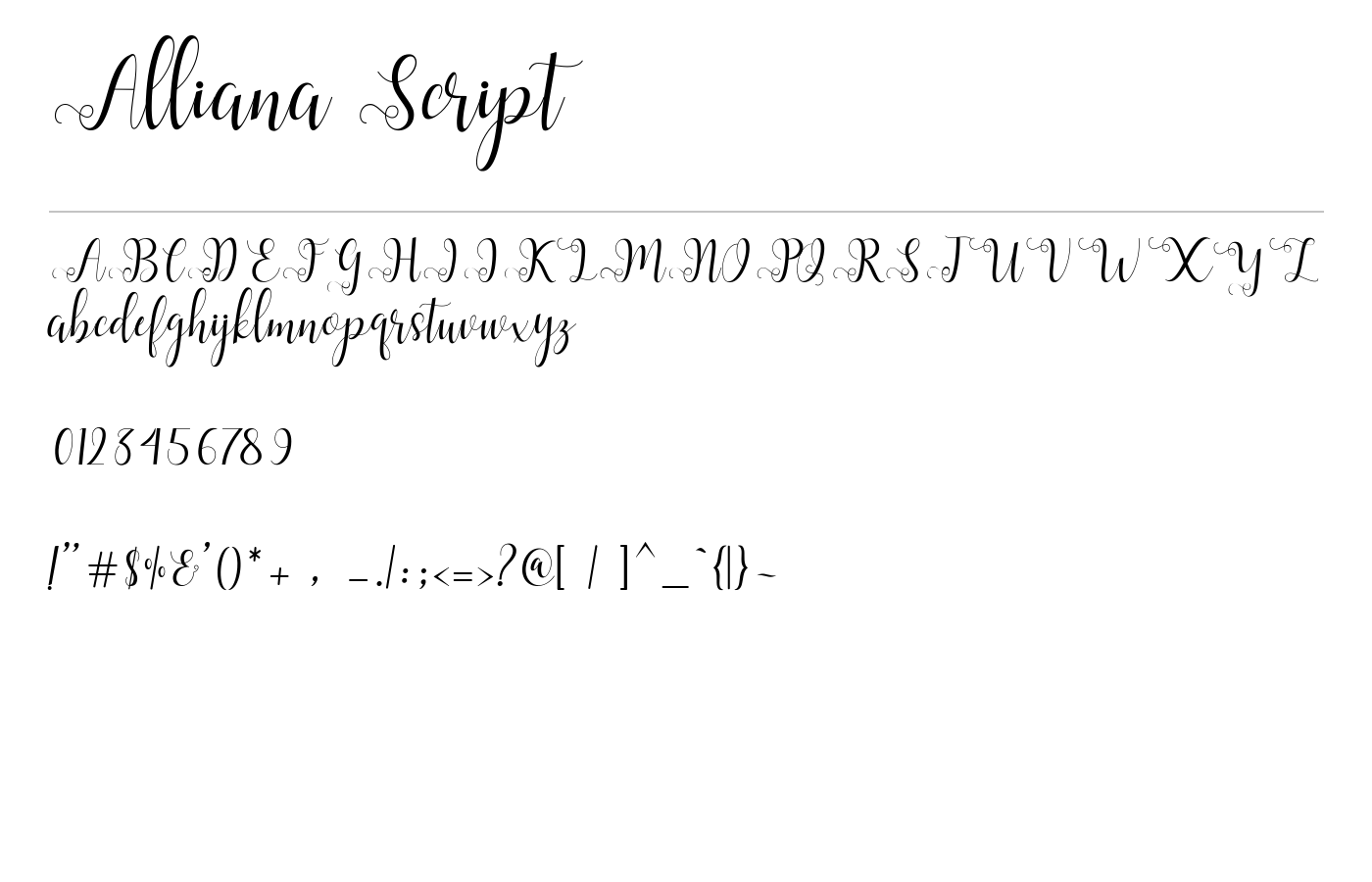
Alliana Script is an elegant and delicate script font featuring graceful, flowing letterforms with fine strokes and sophisticated swashes, especially in the uppercase characters. Its light weight and high contrast give it a refined, romantic feel, making it perfect for luxury branding, wedding invitations, and stylish editorial designs where a touch of elegance and femininity is desired. This font shines in decorative applications and headlines, adding a personal, handwritten charm to any project.
Alliana Script Font
About Alliana Script Font
| Font family | Alliana Script Font |
| Designer | Creative LAB |